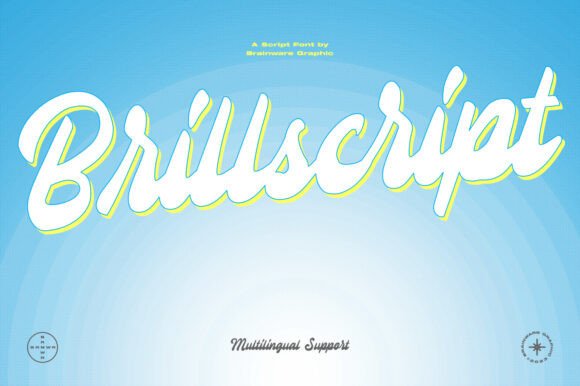
The Charm of BrillScript: A Vintage-Style Handwritten Font
BrillScript is a vintage-style handwritten font that exudes a nostalgic and classic charm. The font evokes a timeless appeal, perfect for projects that require a touch of retro sophistication, such as vintage-themed invitations, logos, packaging, or signage. BrillScript combines the beauty of old-fashioned penmanship with a sense of authenticity, making it ideal for creating designs that feel both personal and historic.
An Honest Review of BrillScript
What I Love About BrillScript ✨
- ✅ The font’s unique, hand-crafted feel makes it perfect for adding a personal touch to designs.
- ✅ The characters are beautifully crafted, with a high level of detail and precision.
- ✅ BrillScript comes in a range of styles, making it versatile for different design projects.
- ✅ The font is highly legible, even at smaller sizes.
- ⚠️ Some users may find the font a bit too ornate for certain design projects.
- ⚠️ The font may not be suitable for very large or very small text sizes.
The Backstory of BrillScript
BrillScript was designed by a talented typographer who was inspired by the classic scripts of the past. The font was created to evoke a sense of nostalgia and timelessness, perfect for designs that require a touch of vintage charm. The designer spent countless hours perfecting the font, ensuring that every character was beautifully crafted and precise.
Q: What is BrillScript?
A: BrillScript is a vintage-style handwritten font that exudes a nostalgic and classic charm.
Q: What can I use BrillScript for?
A: BrillScript is perfect for projects that require a touch of retro sophistication, such as vintage-themed invitations, logos, packaging, or signage.
Q: Is BrillScript easy to read?
A: Yes, BrillScript is highly legible, even at smaller sizes.